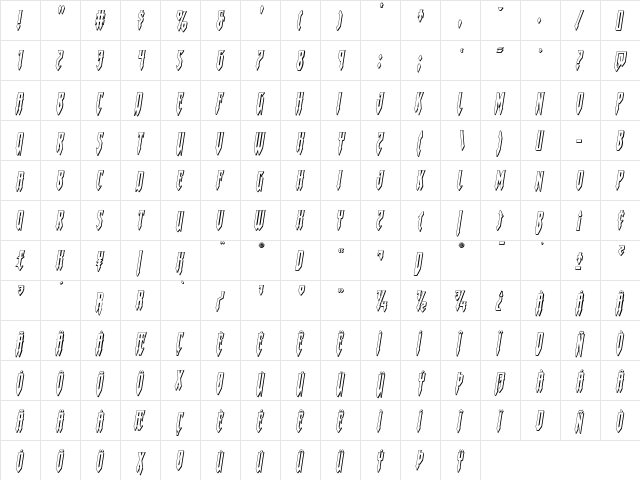
Gotharctica 3D Italic Italic
Design Context for Gotharctica 3D Italic Typeface
Gotharctica 3D Italic is a composed and adaptable typeface that performs quietly and consistently across a wide range of design contexts. Its italic angle brings a sense of urgency and motion to the letterforms.
Pro Tip: Use Gotharctica 3D Italic for emphasis, pull quotes, and subheadings where its slanted energy can add rhythm to the layout.